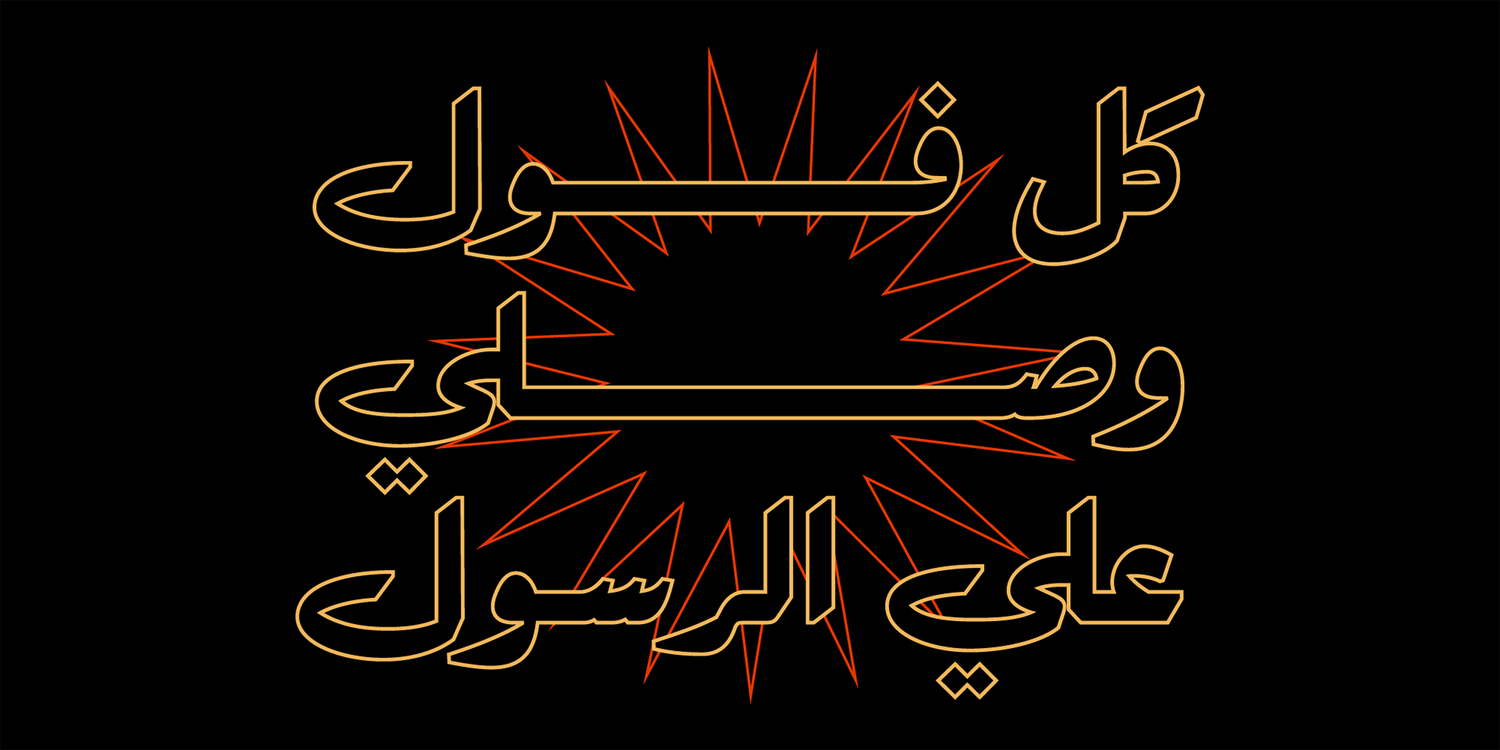
Felfel is an Arabic typeface inspired by the rich history of the Arabic Ruq’ah, one of the most widely used Arabic calligraphy styles, but with a modern pinch. It’s available in Bold but the rest of the family is on the way with different weights and effects influenced by the visual identity of Egyptian streets.
Born from the fundamental need in the Arabic design scene for versatile Ruq’aa fonts, Felfel is made to celebrate the elegance and timeliness of Arabic calligraphy while solving the problem of the cascading nature of Ruq’ah that results in increased line spacing.
Felfel is space friendly, it saves you space and characters.
It’s a delicious infusion of the familiarity of the Arabic Ruq’ah with a modern take that’s perfect for headlines and quotes. Felfel supports major Arabic-script based languages, and covers Arabic, Hindu and Farsi numbers.